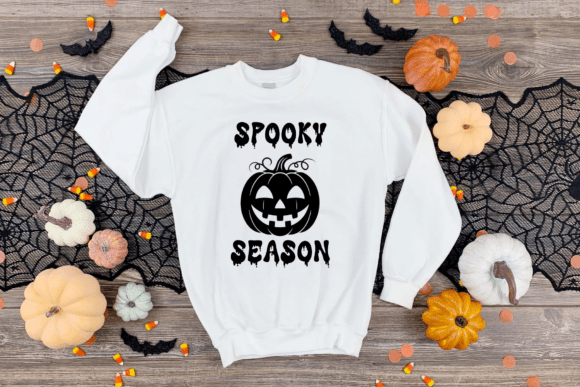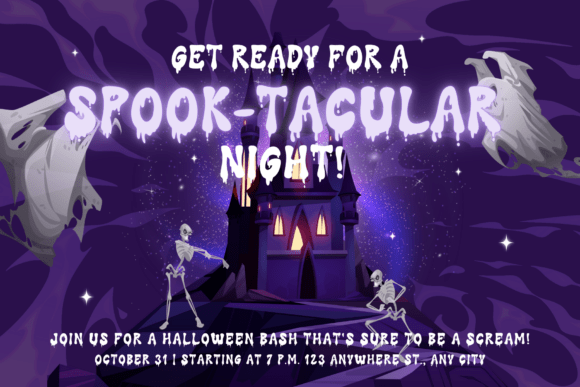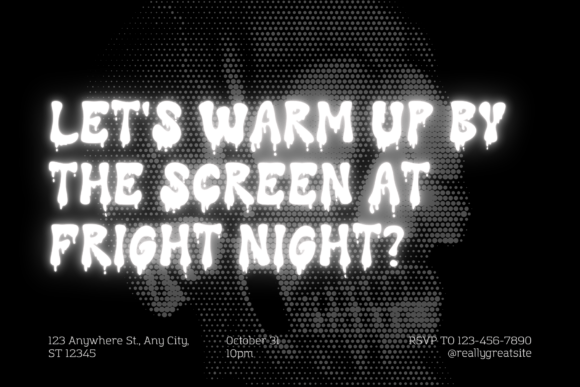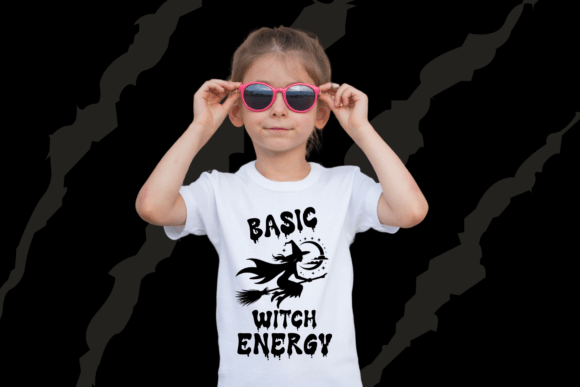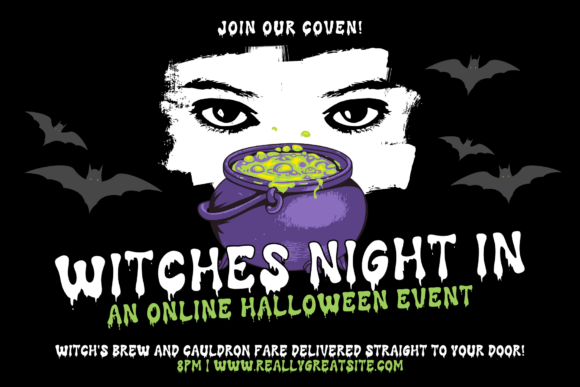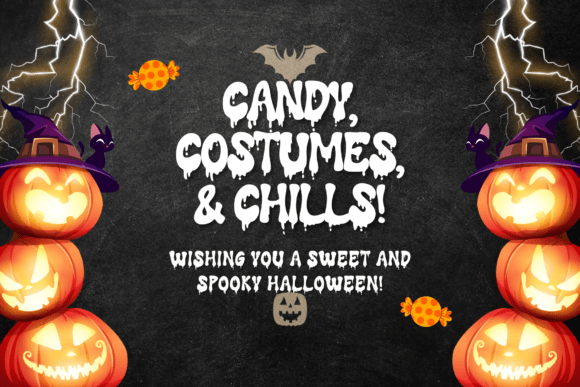
Introduction to Retro Bloodline Font
Immerse yourself in the chilling allure of Retro Bloodline, a Halloween-inspired display font that seamlessly blends entertainment with sincerity.
With its distinct character, Retro Bloodline elegantly breathes life into an extensive array of projects, from engaging blog posts and distinctive logos to compelling branding elements It accentuates the charm in advertisements, enlivens invitations and greeting cards, adds oomph to planners, enhances the visual appeal of photo albums, and even intensifies the magnificence of diverse decorations.
Key Features of Retro Bloodline Font
Why Choose Retro Bloodline Font?